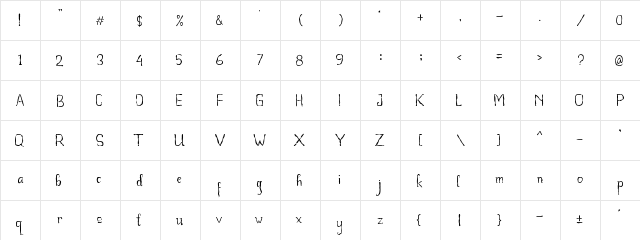
Beegal Regular
Design Context for Beegal Typeface
Beegal takes a measured approach to typography — its balanced proportions and neutral character make it a reliable workhorse for both digital and print work.